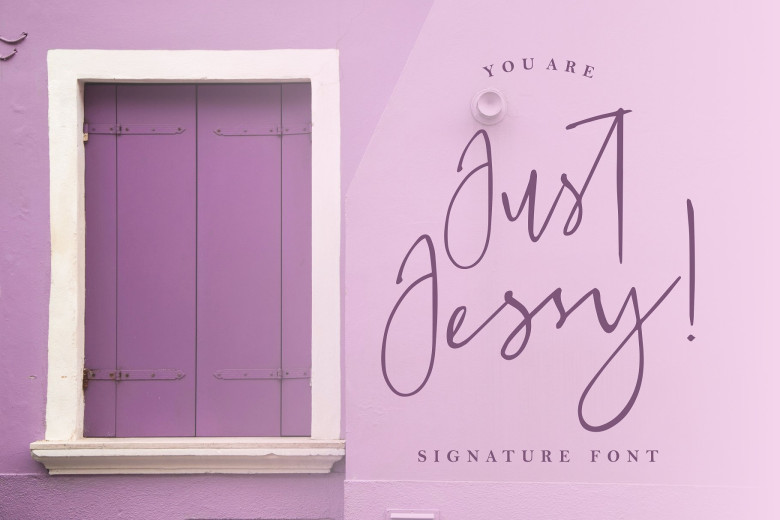
Just Jessy Signature Font
If you are looking for such a handwriting then it is here. A handwritten font with perfect signature style, it’s completely manual, so it is most authentic. Introducing Just Jessy Font. JUST JESSY! – with elegant lines that makes this font perfect for imaging your personal brand and every great project, such as: logos, invitations, stationery, wedding designs, social media posts, advertisements, product packaging, product design, labels, photography, watermarks, special events, and more!